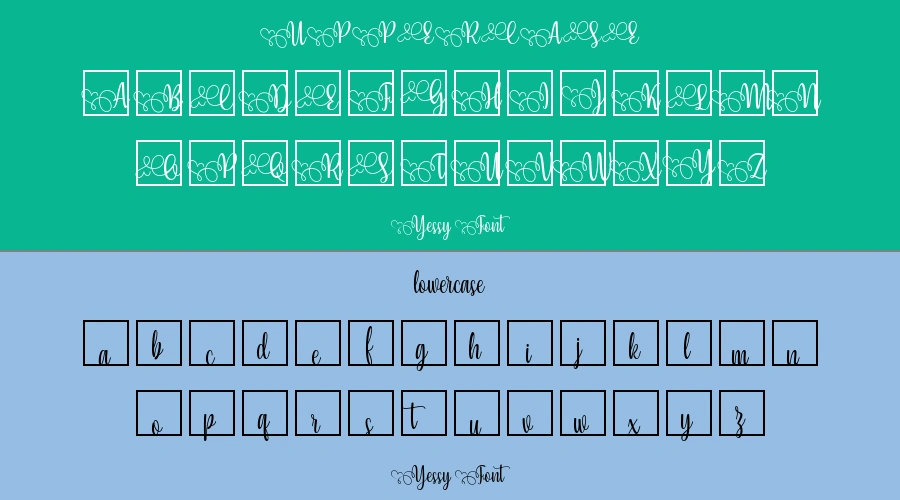
About Yessy Font
Yessy Font embodies typographic excellence through its masterful combination of unique personality and professional standards. Created for architectural plans, this typeface delivers exceptional personality and ceremonial suitability across all applications. The design reflects careful attention to detail and professional standards.
Advanced capabilities include distinctive pen-inspired details and versatile arrow sets, giving designers creative control. When used in ceremonial texts, Yessy Font exhibits remarkable archive stability. The harmonious balance between curve radius and historical context sets this typeface apart.